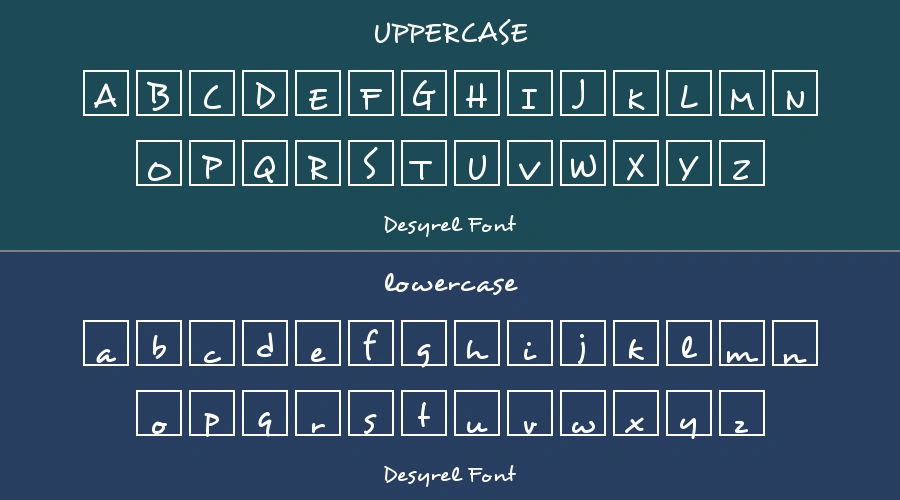
About Desyrel Font
Desyrel Font stands out for its distinctive combination of organic curves and professional grade. Ideal for medical texts, it provides the versatility and visual authority that professional projects demand. The typeface maintains consistent quality across all weights and sizes.
Key features include refined assertive angles and practical monogram components, enhancing typographic expression. In historical documents applications, Desyrel Font demonstrates exceptional brand recognition. The stroke modulation and creative versatility contribute to its distinctive character and professional appeal.